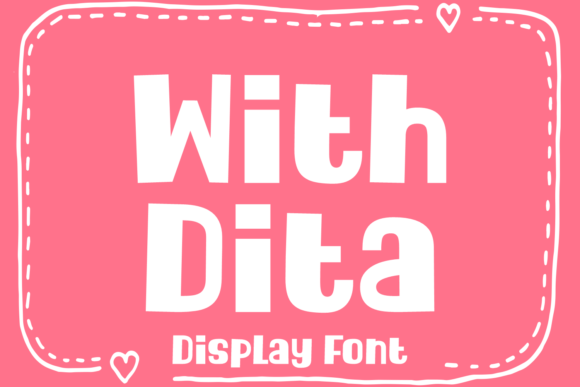
Dive into the world of With Dita, a display font that exudes joy, smiles, and pure excitement! Immerse yourself in a world of endless creative possibilities, where your projects come alive with a touch of magic. With its playful and mesmerizing style, With Dita is the perfect font for crafting posters that shout out joy, game titles that ignite imaginations, cartoon movies that transport viewers to a world of wonder, and credit titles that leave an unforgettable mark. Let With Dita be your canvas as you paint stories, spread happiness, and create designs that dance with delight.
With Dita exudes a charm that captures the imagination, making it an ideal choice for magazine covers that demand attention, logos that radiate personality, and branding that leaves a lasting impression. Its playful nature lends itself perfectly to invitations that spark curiosity, greeting cards that warm hearts, and social media posts that spread laughter and good vibes. Unleash your creativity and let With Dita transform ordinary designs into extraordinary expressions of joy and delight.
But With Dita is more than just a pretty font. It's a doorway to a realm of creativity, where stickers, decals, and labels come alive with vibrant energy. Imagine your designs adorning laptops, water bottles, notebooks, and countless other surfaces, spreading smiles wherever they go. With Dita's enchanting aura, your stickers will be the talk of the town, adding a touch of whimsy and excitement to everyday objects.
So, if you're ready to embark on a typographic adventure, brimming with happiness and wonder, look no further than With Dita. Let this font ignite your imagination and propel your projects to new heights of creativity. Embrace the joy, spread the smiles, and let With Dita sprinkle magic into your digital world.